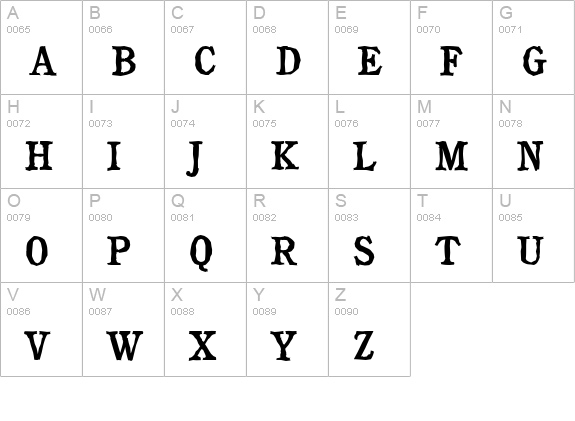
CalgaryAntique-Medium-Regular is a balanced, medium-weight variant in the CalgaryAntique typeface family \xE2\x80\x94 well suited to sub-headlines, navigation, and balanced editorial work.
CalgaryAntique-Medium-Regular is a timeless and elegant font that exudes a sense of vintage charm and sophistication. Its classic serifs and graceful curves make it perfect for adding a touch of nostalgia to any project. This versatile font is ideal for a wide range of design applications, from invitations to branding to editorial layouts. What sets CalgaryAntique-Medium-Regular apart is its unique ability to seamlessly blend tradition with modernity, making it a standout choice for those seeking a font that is both timeless and current. Its medium weight strikes the perfect balance between readability and visual impact, making it suitable for both headlines and body text. Best of all, CalgaryAntique-Medium-Regular is available for free download at FontsMarket.com, allowing designers and creatives to access this exquisite font without any cost. Don't miss out on adding this stunning typeface to your font collection and infusing your projects with a touch of vintage charm and sophistication.